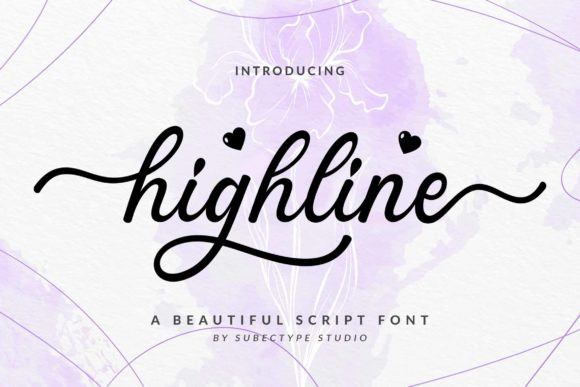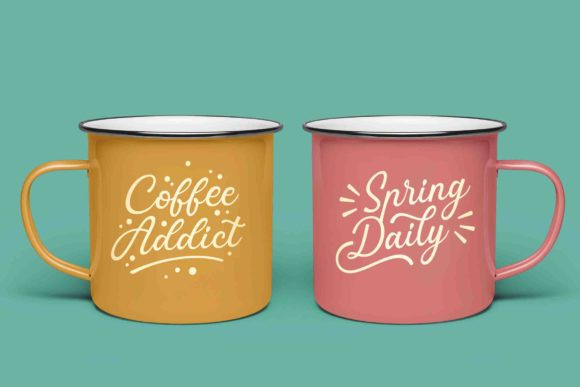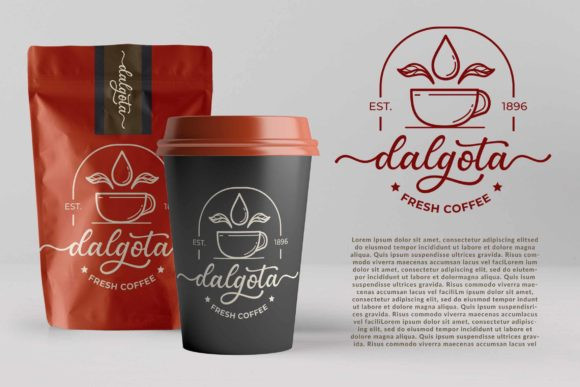
Highline Font
Highline feels magical and lovely, but also elegant. Get inspired by its imaginative charm, and turn any design project into a true standout!
This font is PUA encoded which means you can access all of the cute glyphs and swashes with ease! It also features a wealth of special features including alternate glyphs and ligatures.